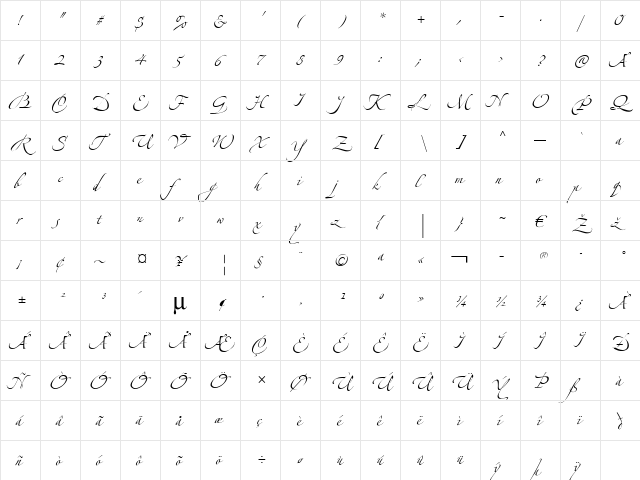
Zeferino One Regular
| Foundry | Alexandria Gophmann aka Fee |
| Designer | Alexandria |
Design Context for Zeferino One Typeface
Zeferino One is a composed and adaptable typeface that performs quietly and consistently across a wide range of design contexts.